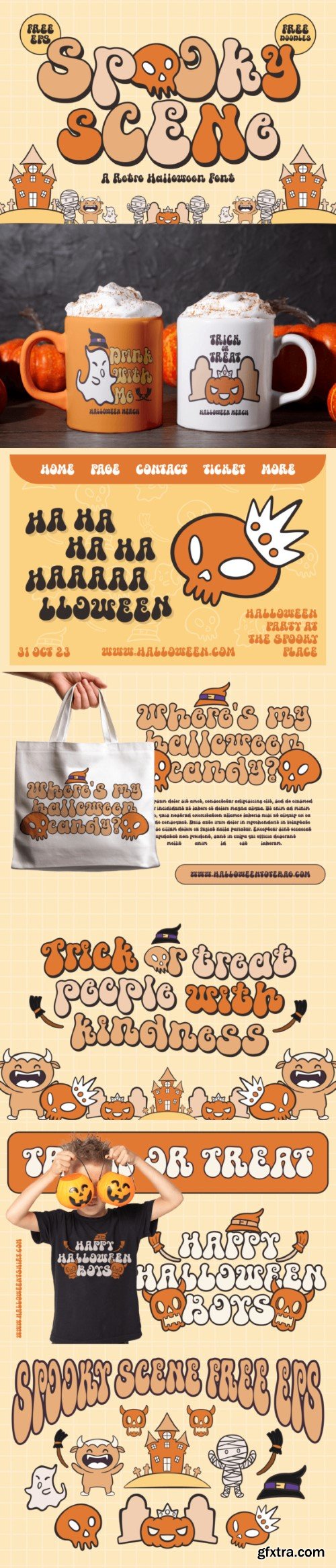
吓人场景字体
It is introducing the “Spooky Scene” font, a captivating typeface that perfectly captures the essence of Halloween enchantment while blending in a dash of groovy nostalgia. With its whimsical curls and playful curves, this font is a delightful fusion of spooky aesthetics and cute charm. Each letter is meticulously designed to conjure images of moonlit nights, ghosts, and pumpkins.